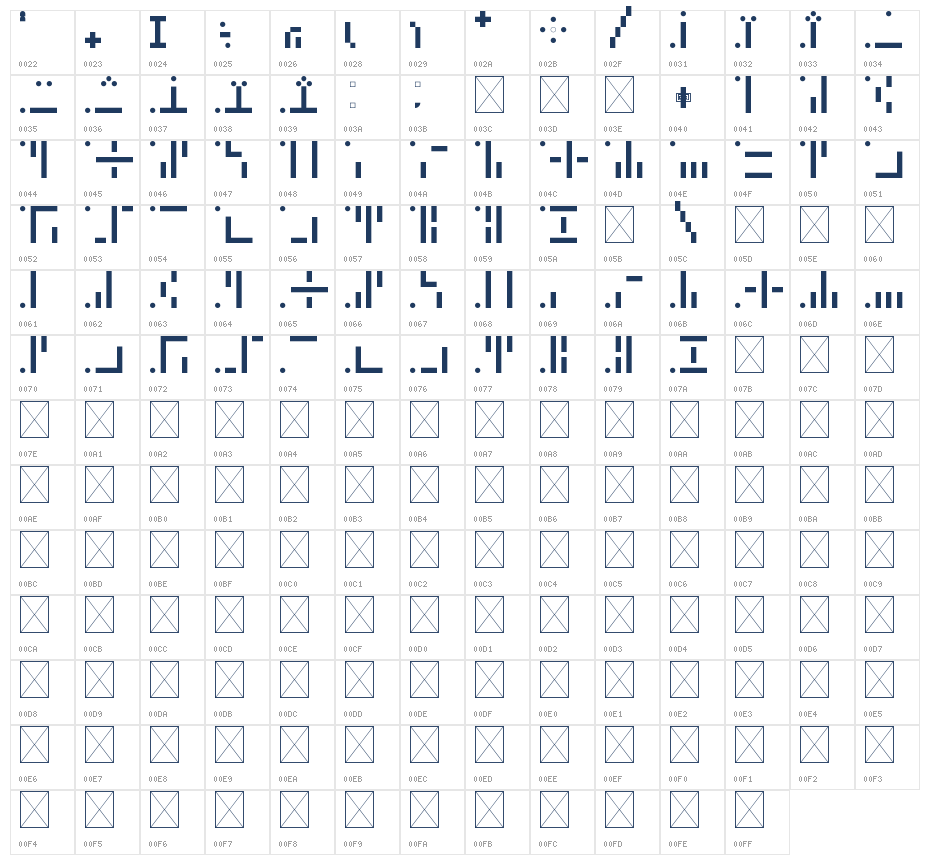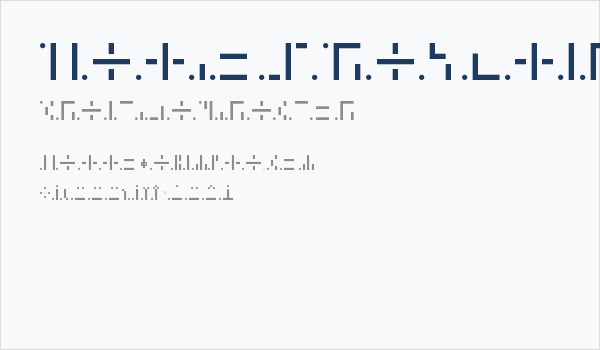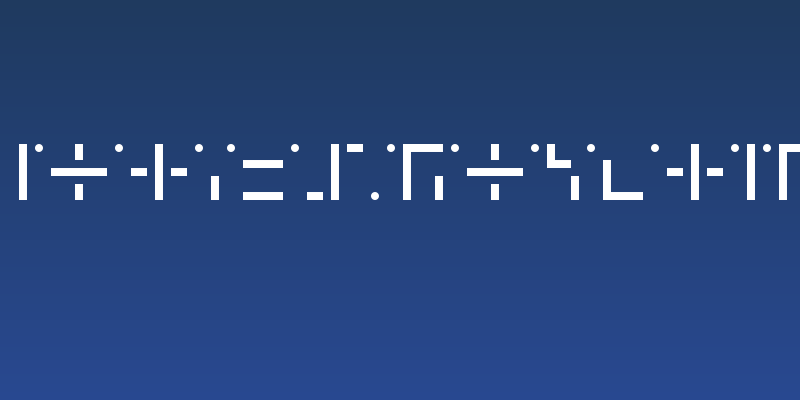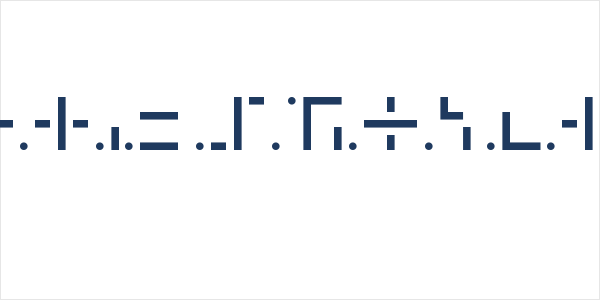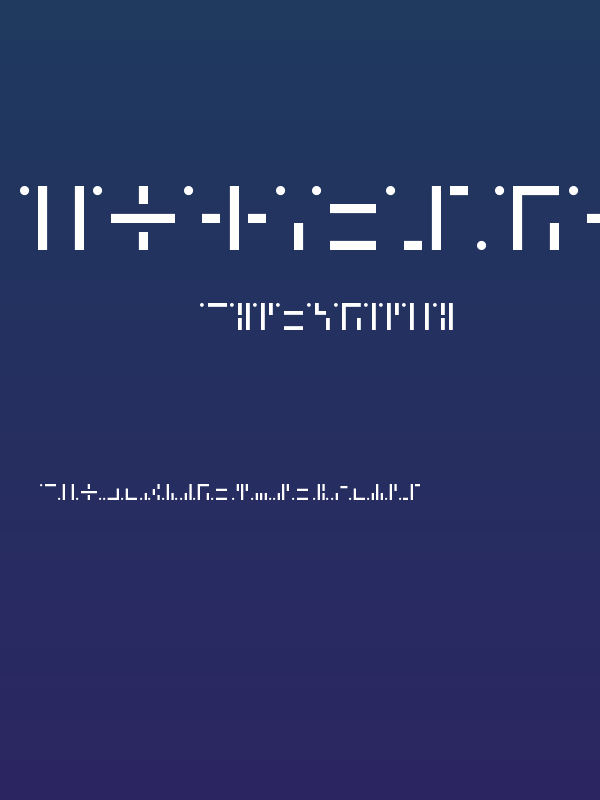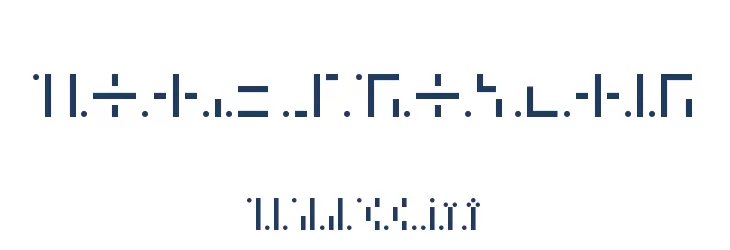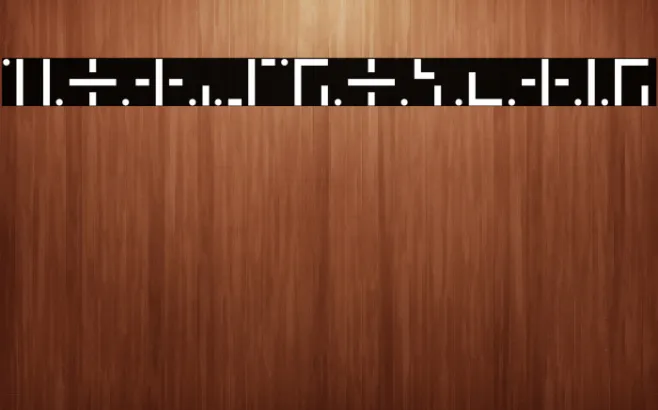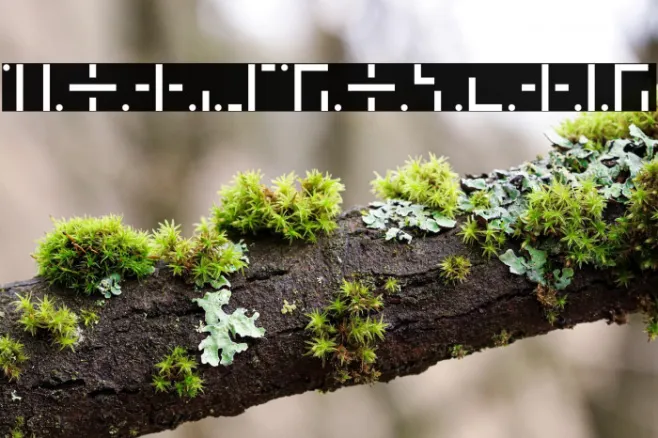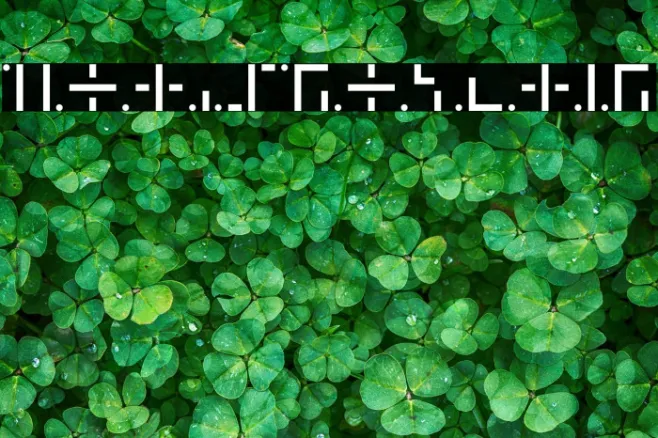
Helios Regular Font
Helios Regular Description
A pixelated, digital-style font with a broken, fragmented appearance, resembling a digital or electronic display.
| Overall Style | Digital, Tech, Retro |
| Use Case | Headlines, Digital displays, Tech branding, Sci-fi themes |